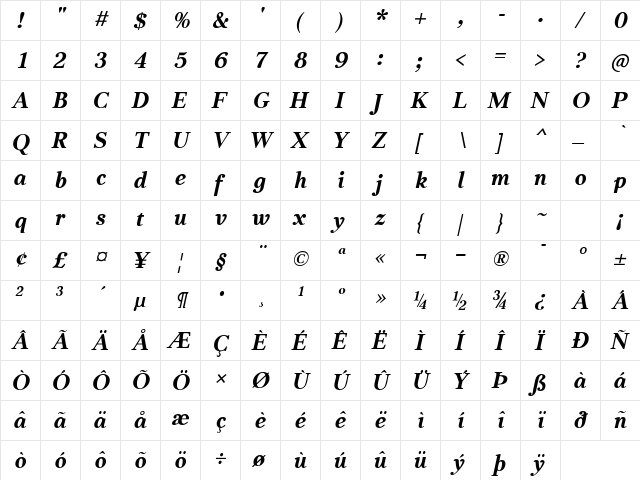
JabcedHy BoldItalic
Design Context for JabcedHy Typeface
JabcedHy offers clean, dependable letterforms without strong stylistic allegiance, making it a practical choice for designers who need flexibility. The dynamic lean of this cut emphasises speed and emphasis in any layout. Its bold stroke weight gives it real presence on the page.
Pro Tip: Try JabcedHy for annotation and caption copy alongside an upright companion — the contrast in angle creates a dynamic but ordered typographic system.